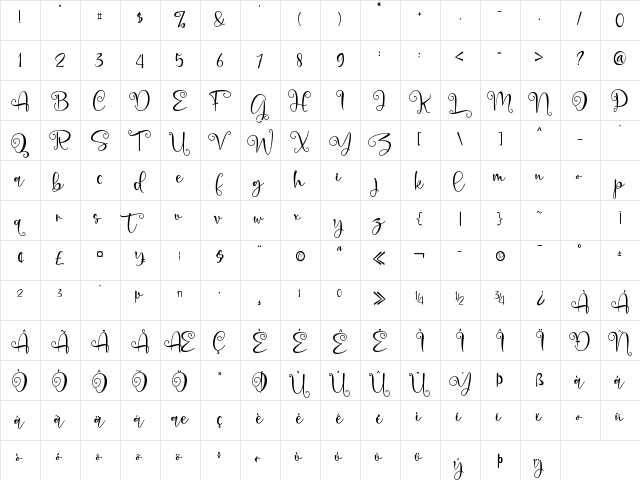
Cheerful Day Regular
Design Context for Cheerful Day Typeface
Cheerful Day is a composed and adaptable typeface that performs quietly and consistently across a wide range of design contexts.